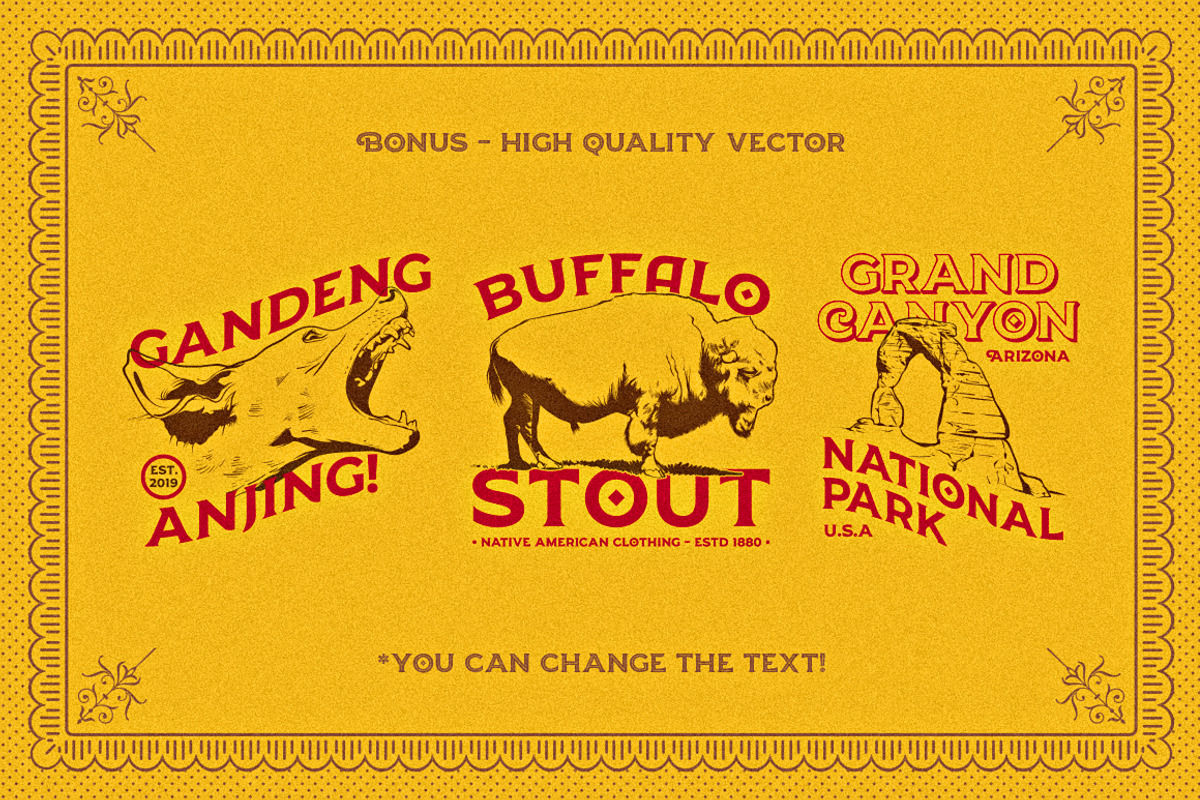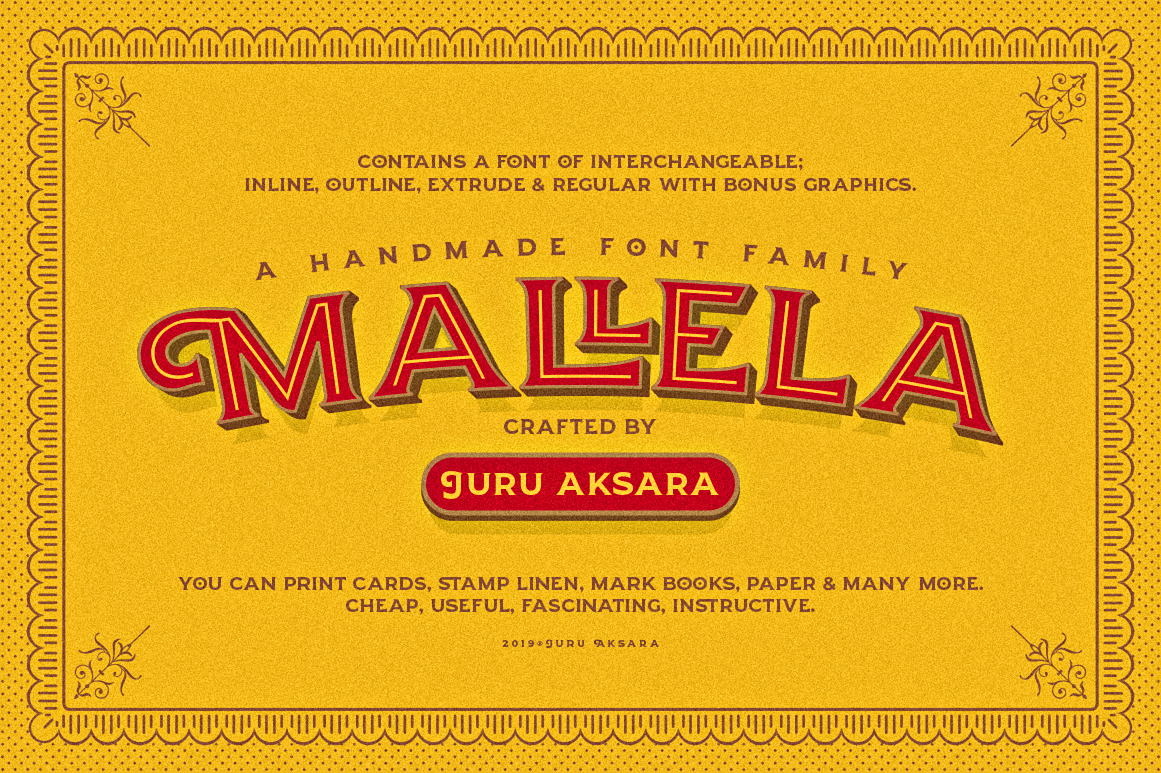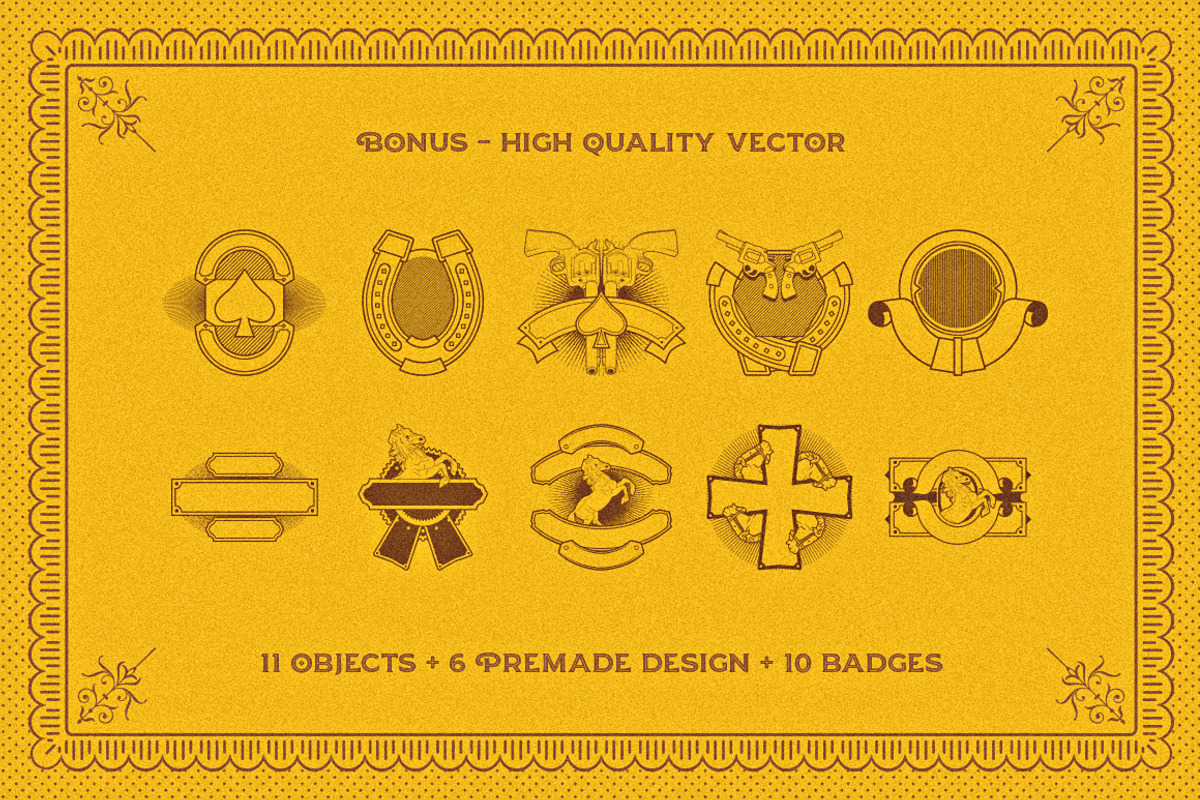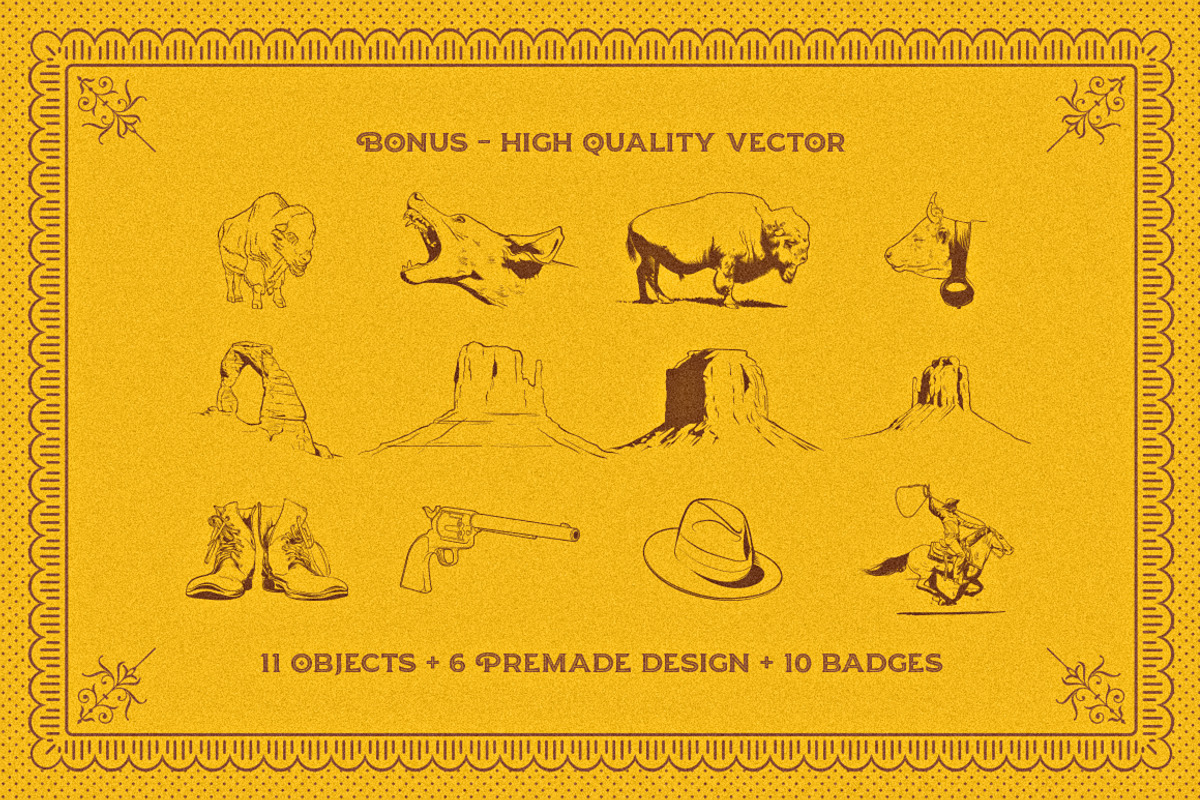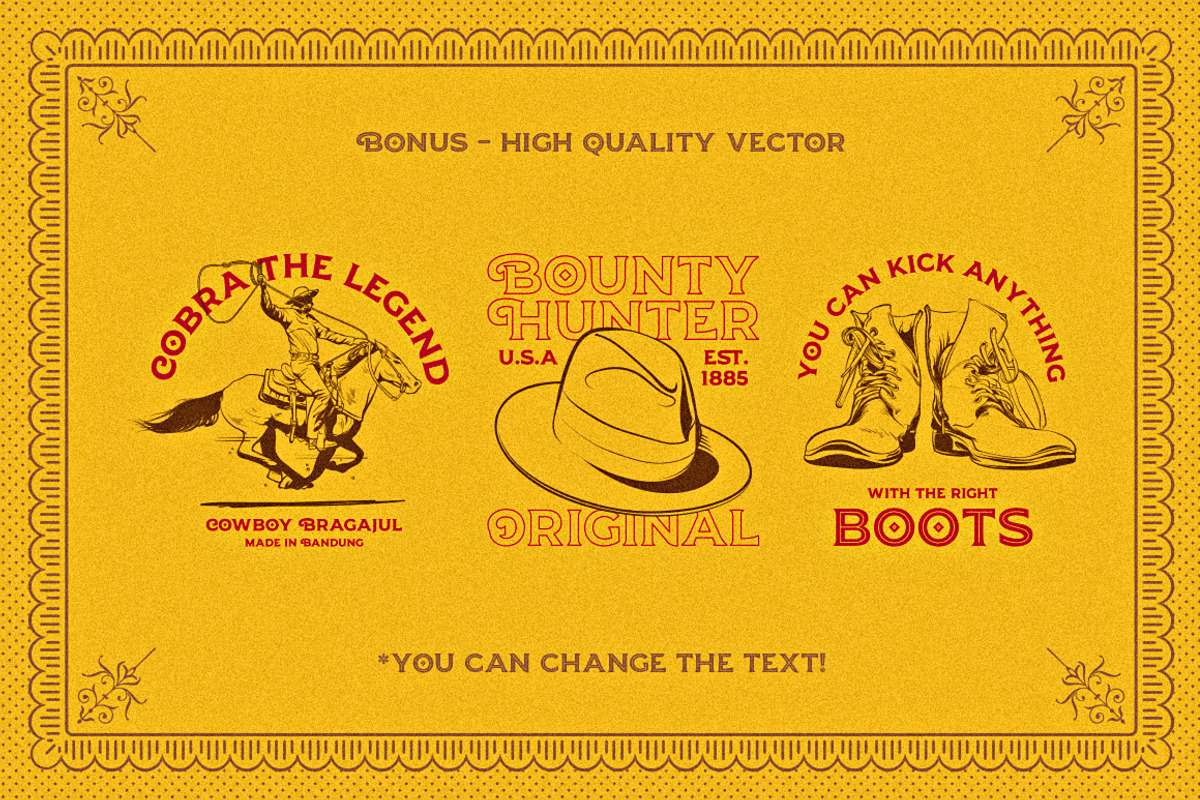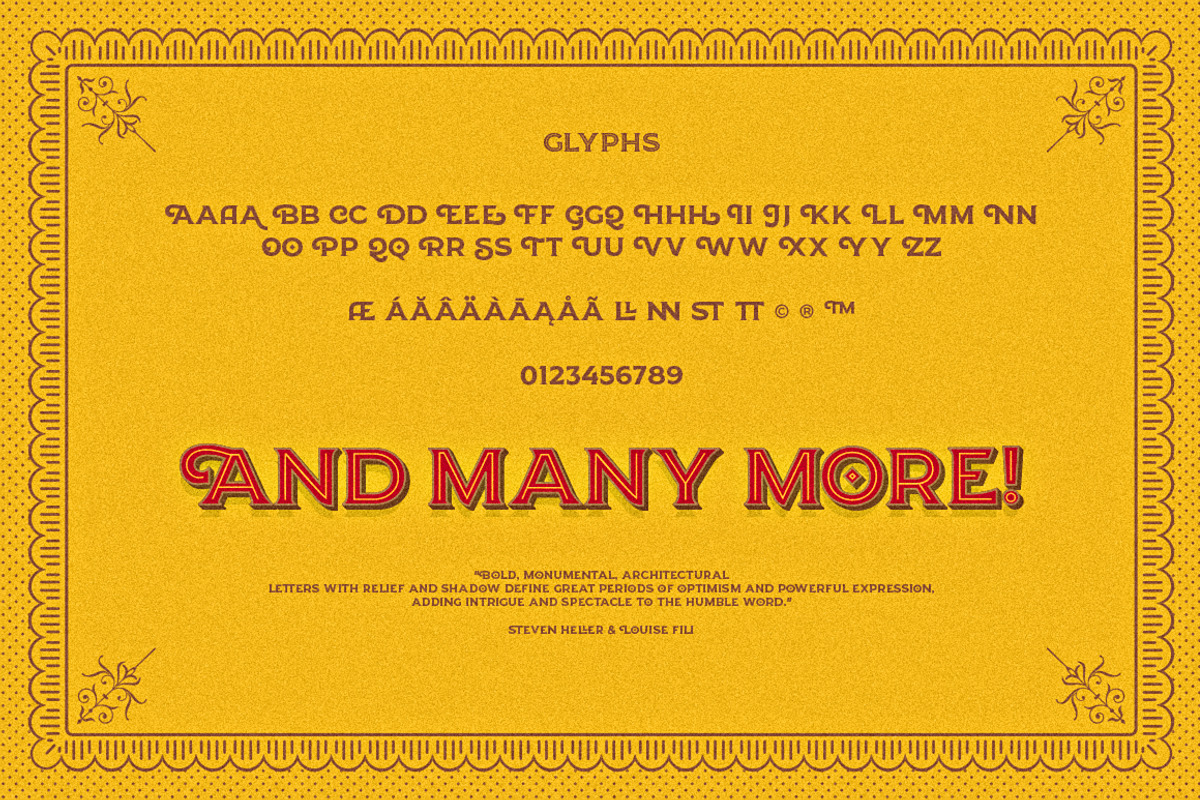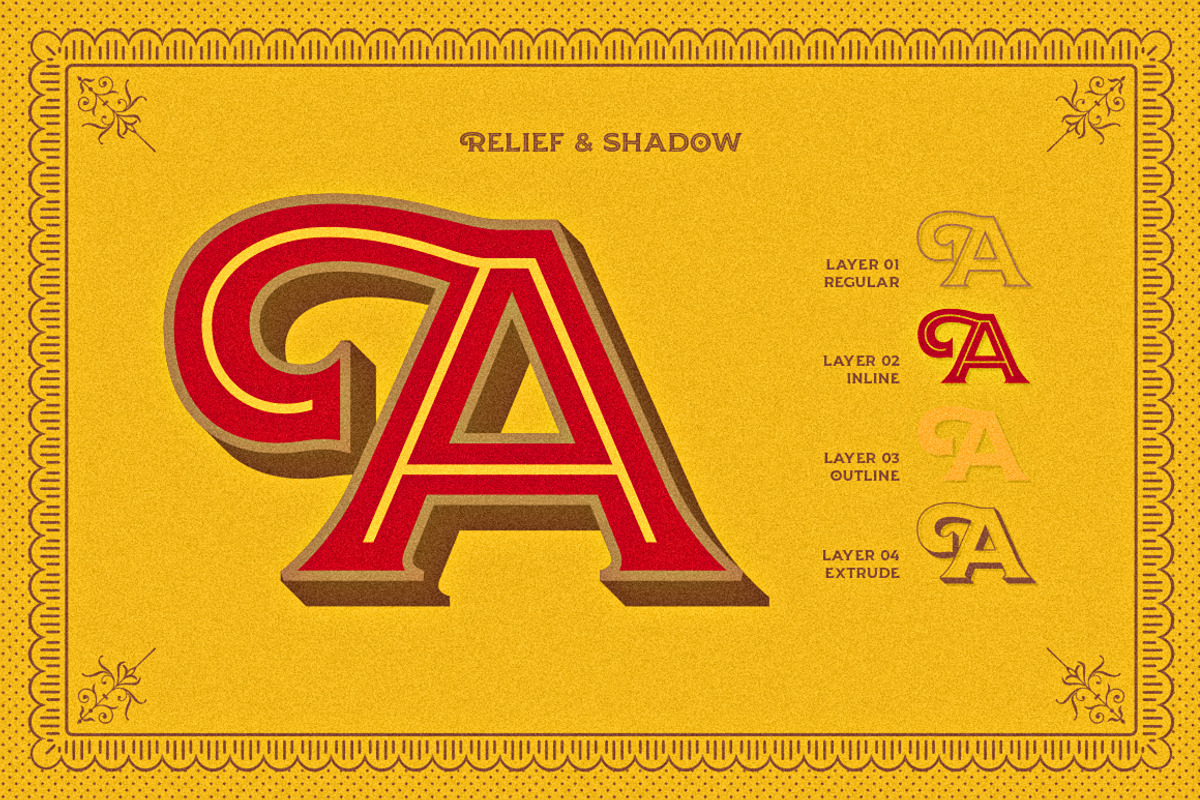
Mallela Typeface + BONUS
Tropica Imaginaria
This description is the brainchild from the tropical island. The essence of a trend will always be rotating, because of his fate? boredom of viewers? or the moral decline of the artwork hijackers?
Lately, vintage themes in the design world always showed up, have you ever thought that the word "vintage" is a colonization of meaning, where the word means junk, old-fashioned, ancient, etc.
Yet in his time the "vintage" was something that was sophisticated, cutting-edge, futuristic, visionary and so forth. At the time, the designers had thought of cool works for one step ahead, believed his work will surely re-appear in the future. Then now there is so much people that to try to currently working bring it back nor to imitate what we now call it vintage.
Malela, a grand offering to the predecessor designers, who carried the spirit of the past where the triumph of design and art brings culture more advanced.
The glory when art meets industry ultimately makes mechanical things make sense. The glory when design meets business, where consumers can recognize the products. The glory when billboards, signage, flyers, etc are masterpiece not visual waste.
The rotation of the trend is certain but the original work are the first. Malela is a true work that adheres to the real basis of vintages.